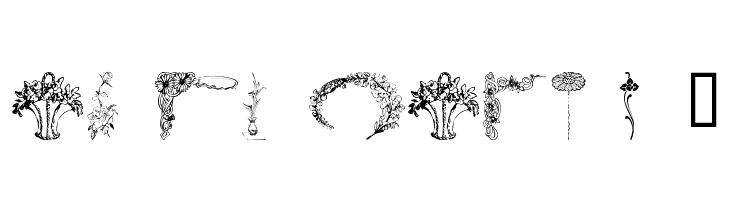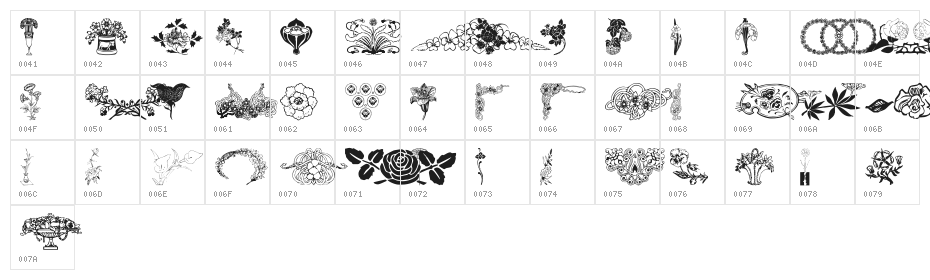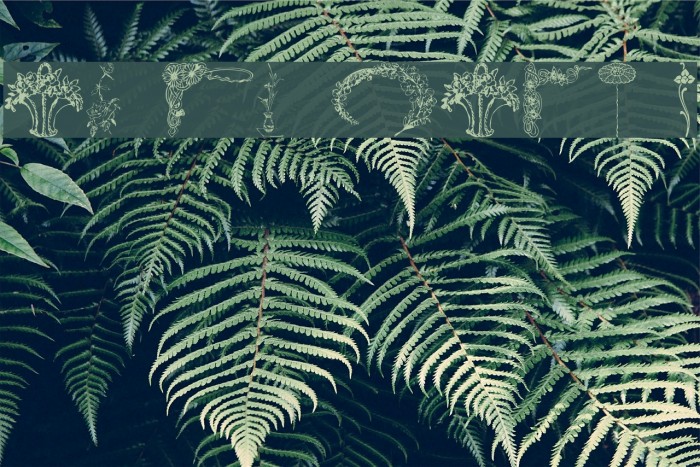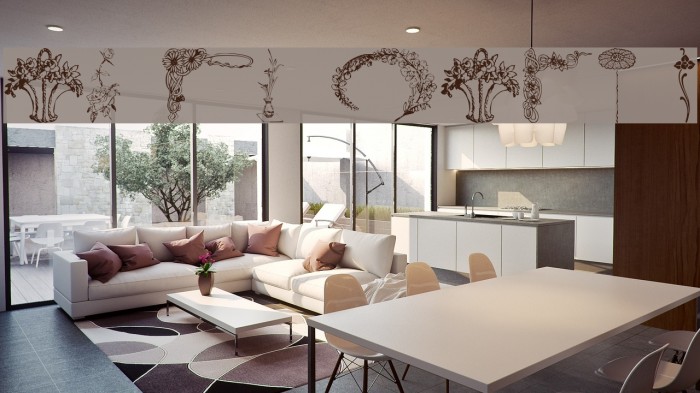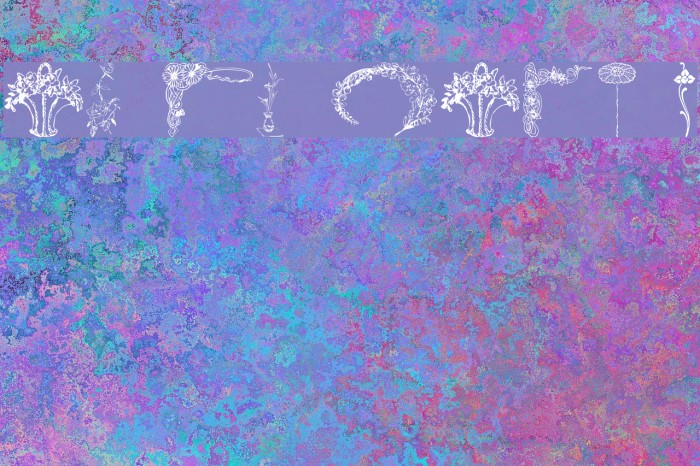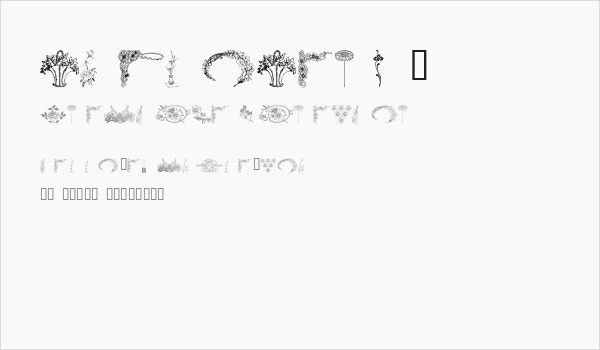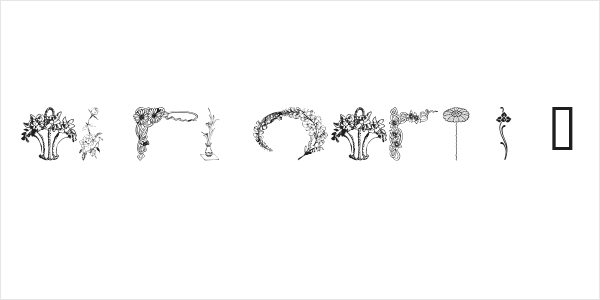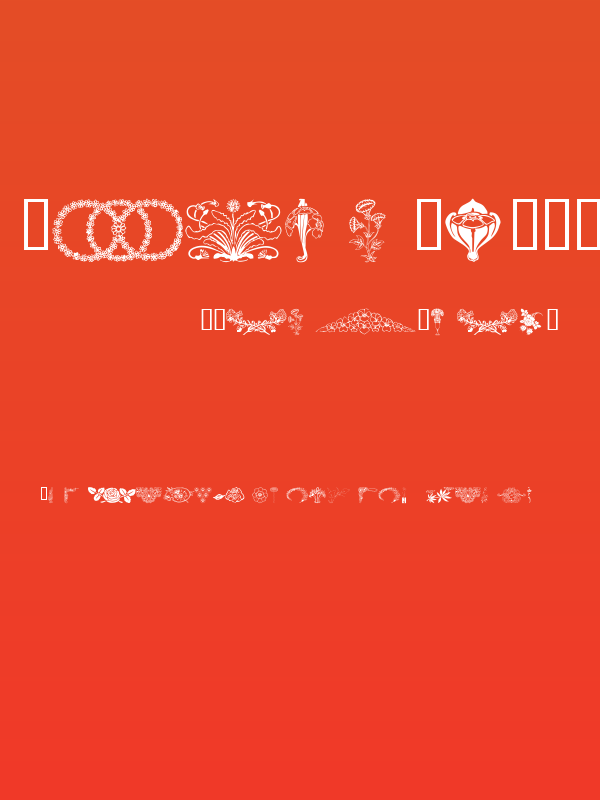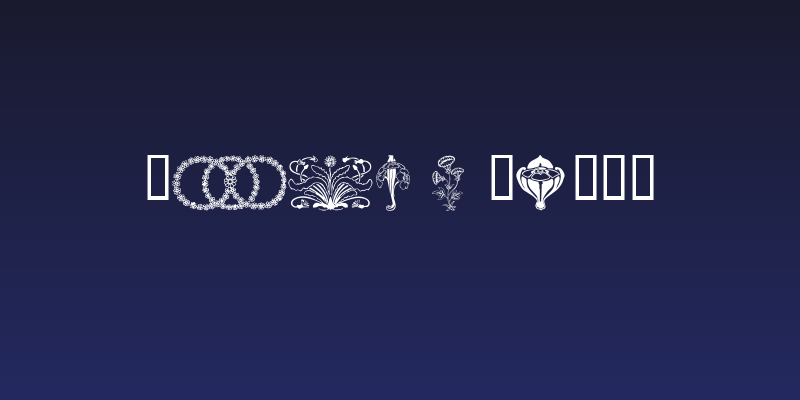
wmflowers3 Font
wmflowers3 Description
A decorative dingbat font featuring a variety of intricate floral and botanical illustrations, including bouquets, single flowers, ornate arrangements, and nature-inspired motifs. The glyphs are detailed and ornamental, suitable for embellishing designs with a vintage or romantic touch.
| Overall Style | Decorative, Vintage, Ornamental |
| Use Case | Decorative elements, embellishments, borders, icons |
| Proposed Projects | Wedding invitations, greeting cards, scrapbooking, decorative borders, vintage-themed posters, packaging design. |